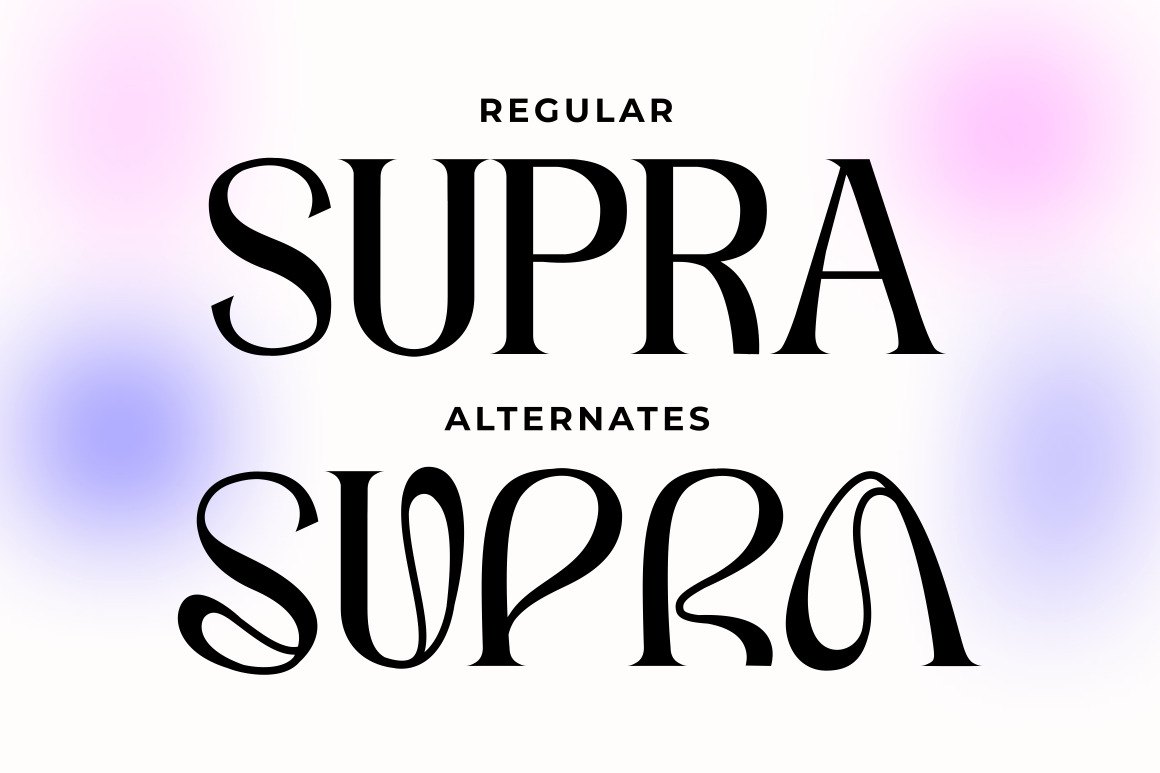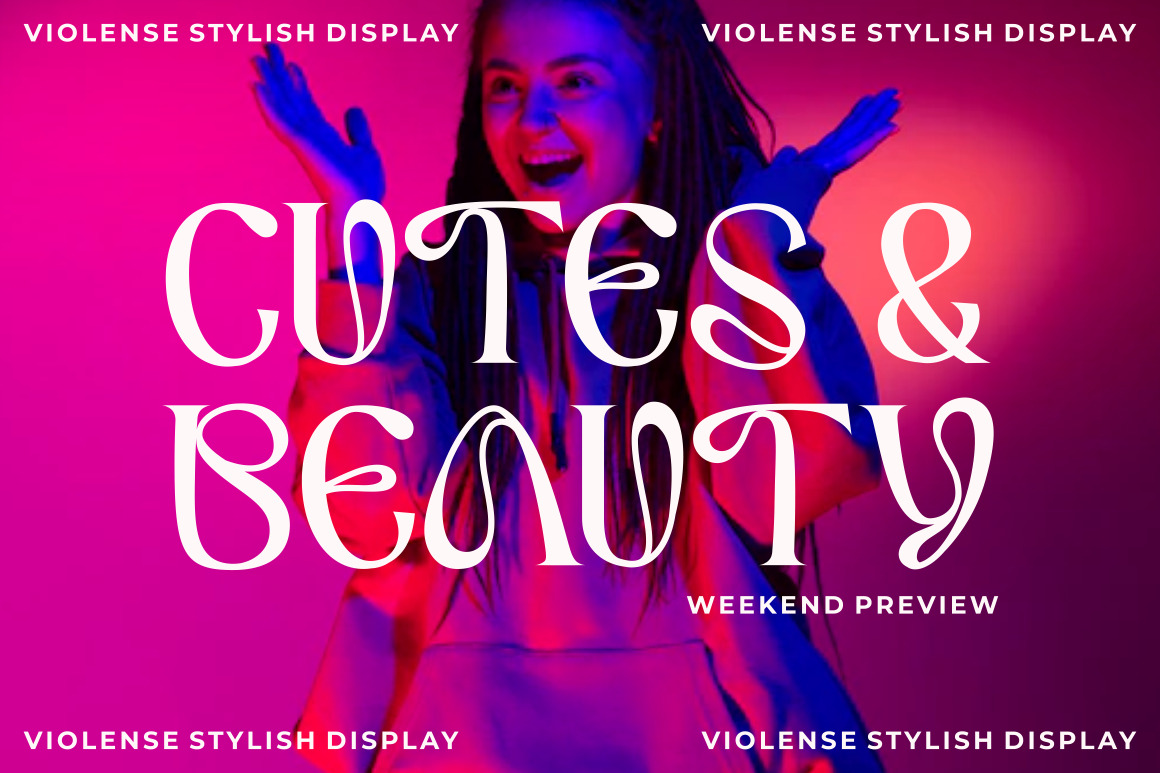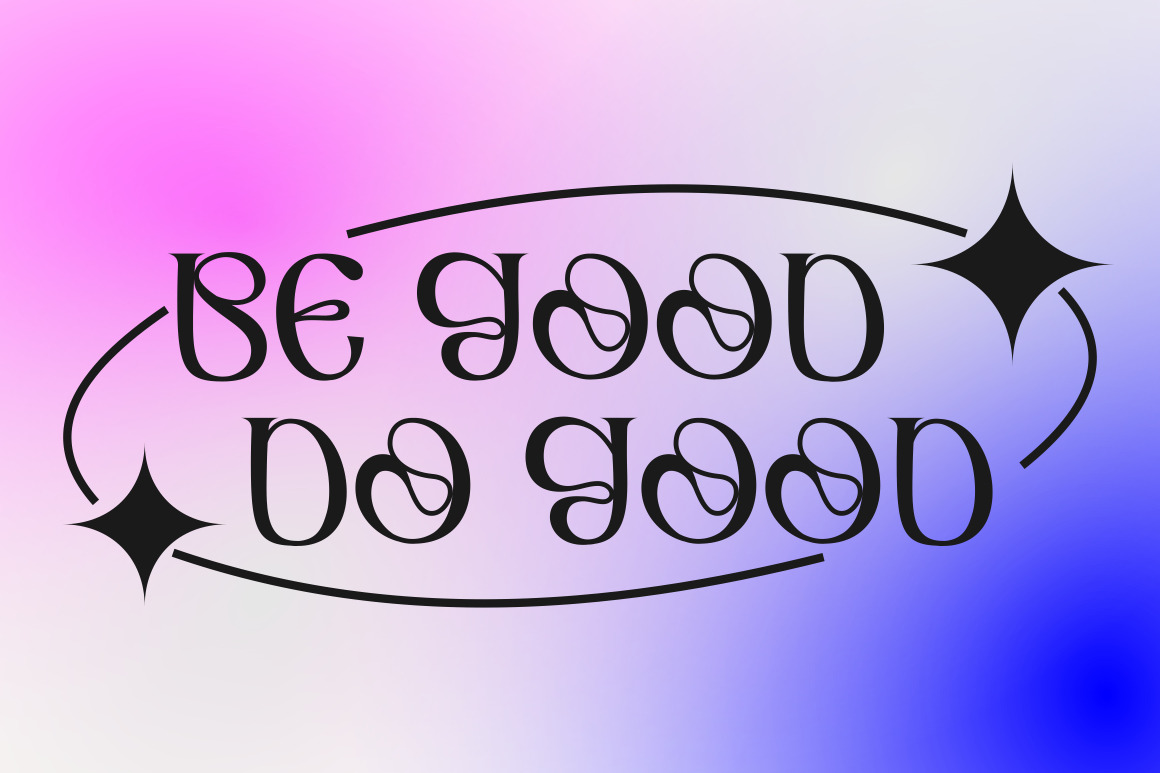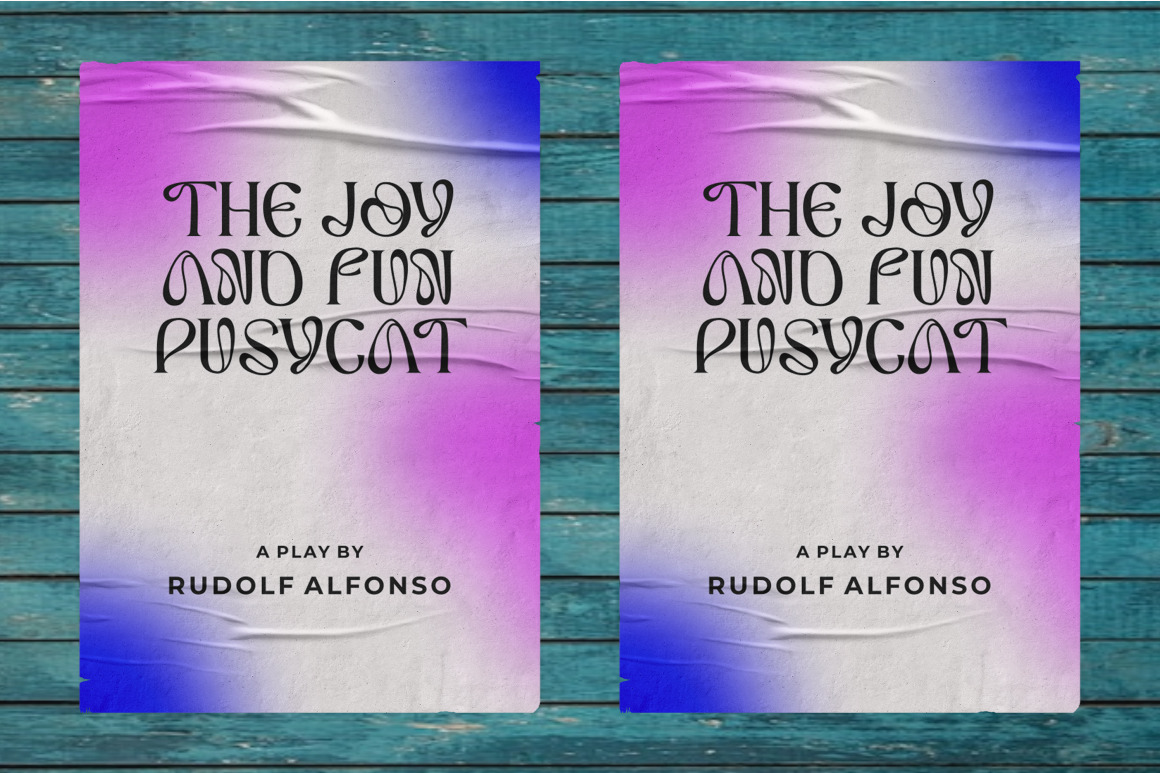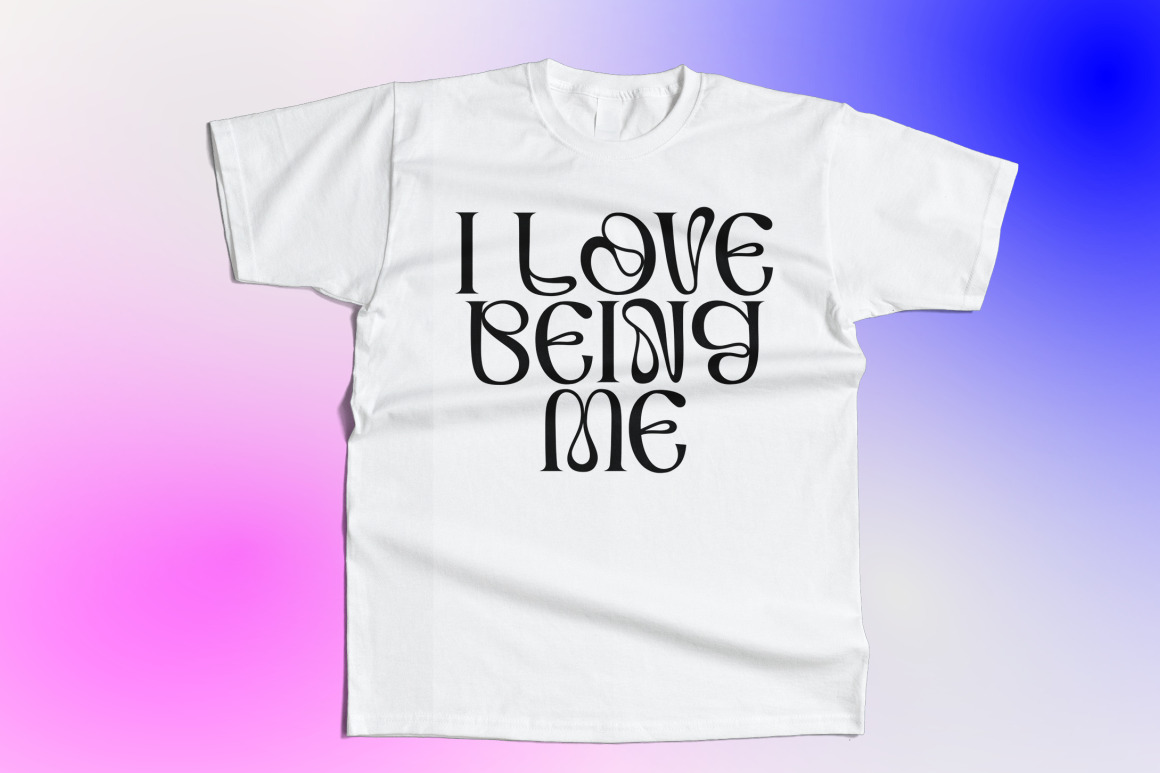
Violense - Stylish Display Font
Violense - Stylish Display Font. Inspired from unique typography and lettering in the elegant alphabet from stylish display and we combine with elegant typography style. With modern ligature you can make great lettering for beautiful artwork. Come with open type feature ( a lot of alternates and end swash), its help you to make great lettering. Violense best uses for Logotype, heading,cover, poster, logos, quotes, product packaging, header, merchandise, social media & greeting cards and many more. Violense font is also support multi language.
Opentype (Alternates And Ligatures)